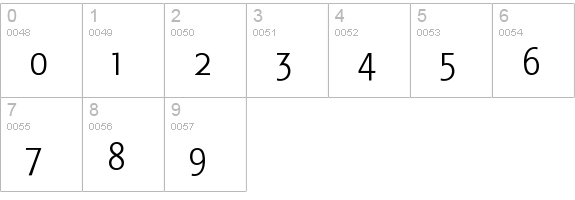
Formata Light Condensed Small Caps & Oldstyle Figures Font Details
Formata Light Condensed Small Caps & Oldstyle Figures is a refined, elegant, condensed-width variant in the Formata typeface family \xE2\x80\x94 well suited to elegant body text, refined sub-headings, and luxury branding.
Formata Light Condensed Small Caps & Oldstyle Figures font is a versatile and elegant typeface that exudes sophistication and style. With its sleek and modern design, this font is perfect for a wide range of design projects, from branding to editorial design. The small caps and oldstyle figures add a touch of classic elegance to any text, making it a timeless choice for any designer. The best part about Formata Light Condensed Small Caps & Oldstyle Figures font is that it is completely free to download at FontsMarket.com. This means that you can easily access this high-quality font without any cost, making it a valuable resource for any designer looking to elevate their work. Whether you're working on a print project or a digital design, Formata Light Condensed Small Caps & Oldstyle Figures font is sure to impress with its clean lines and sophisticated aesthetic. Download it for free today and take your design projects to the next level.